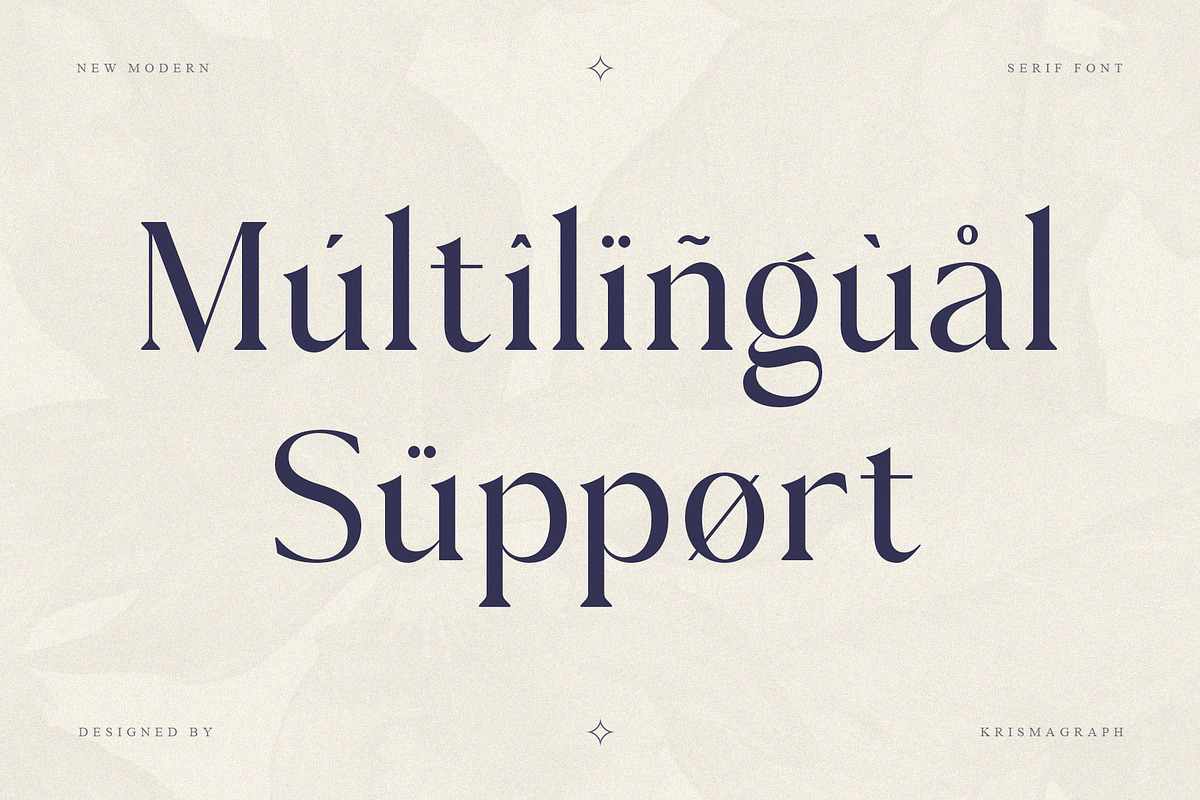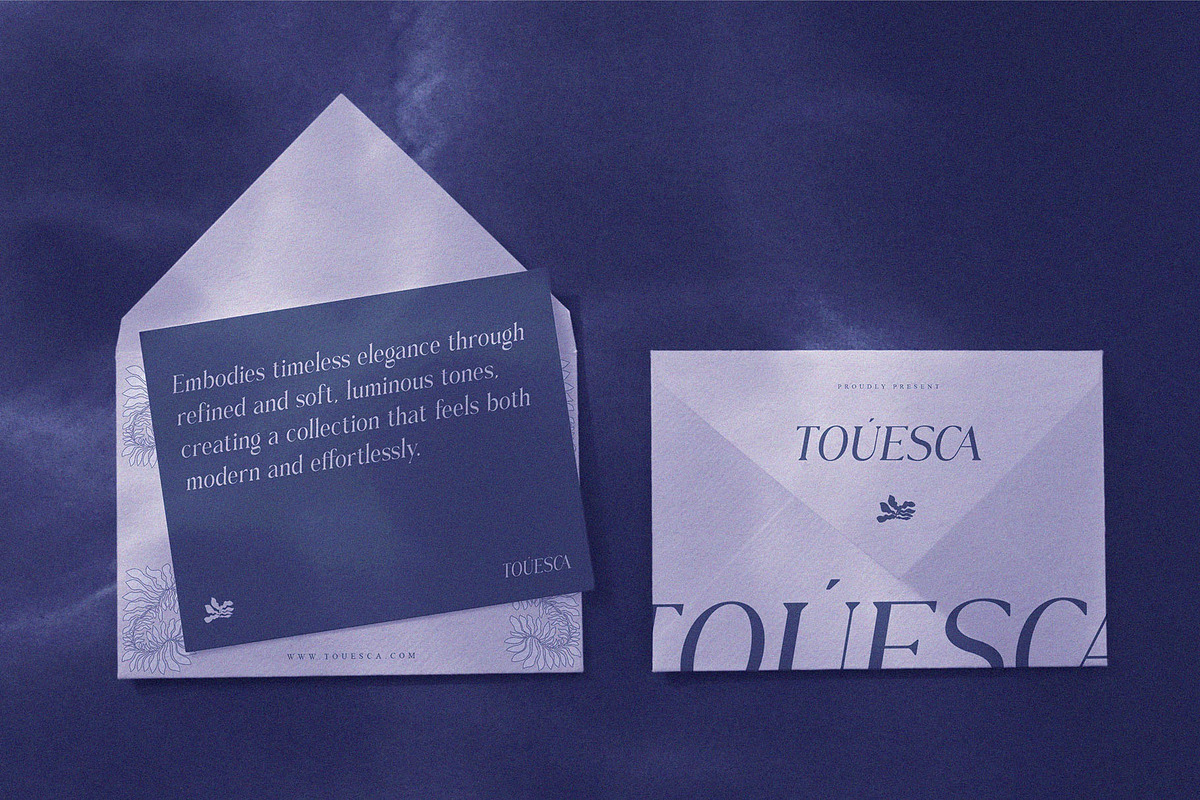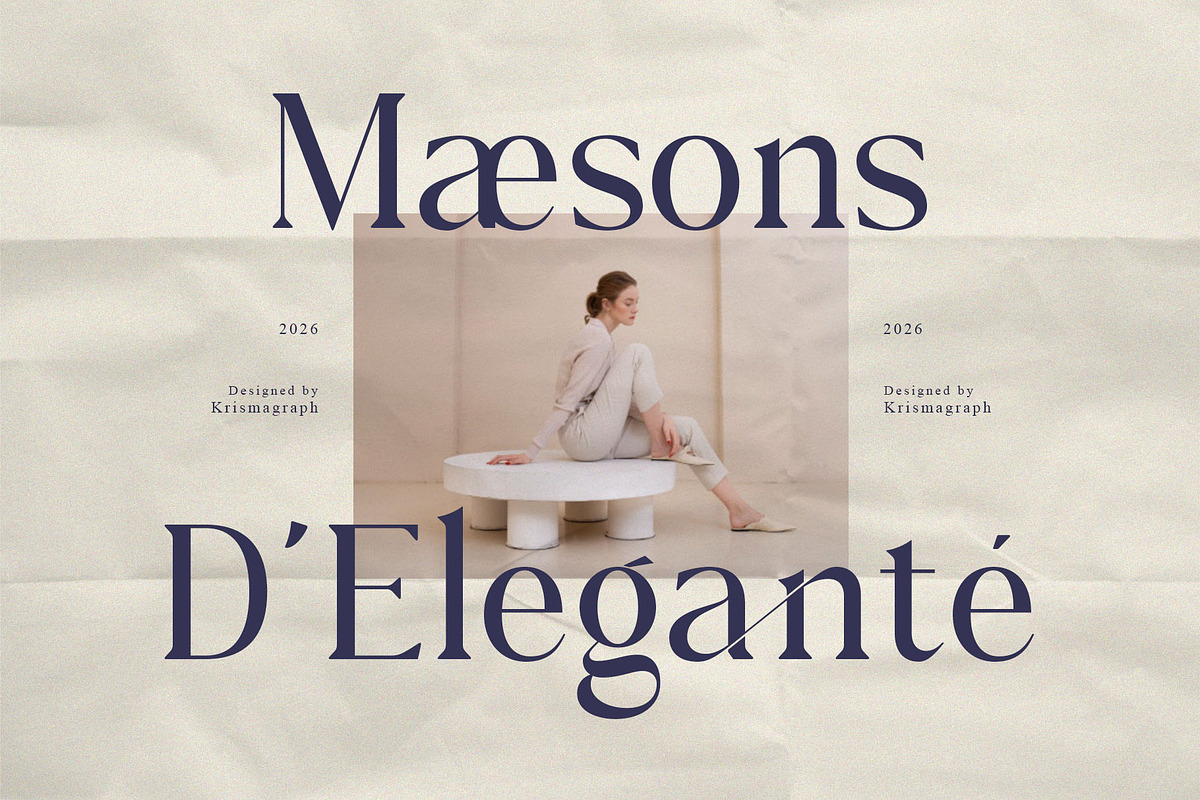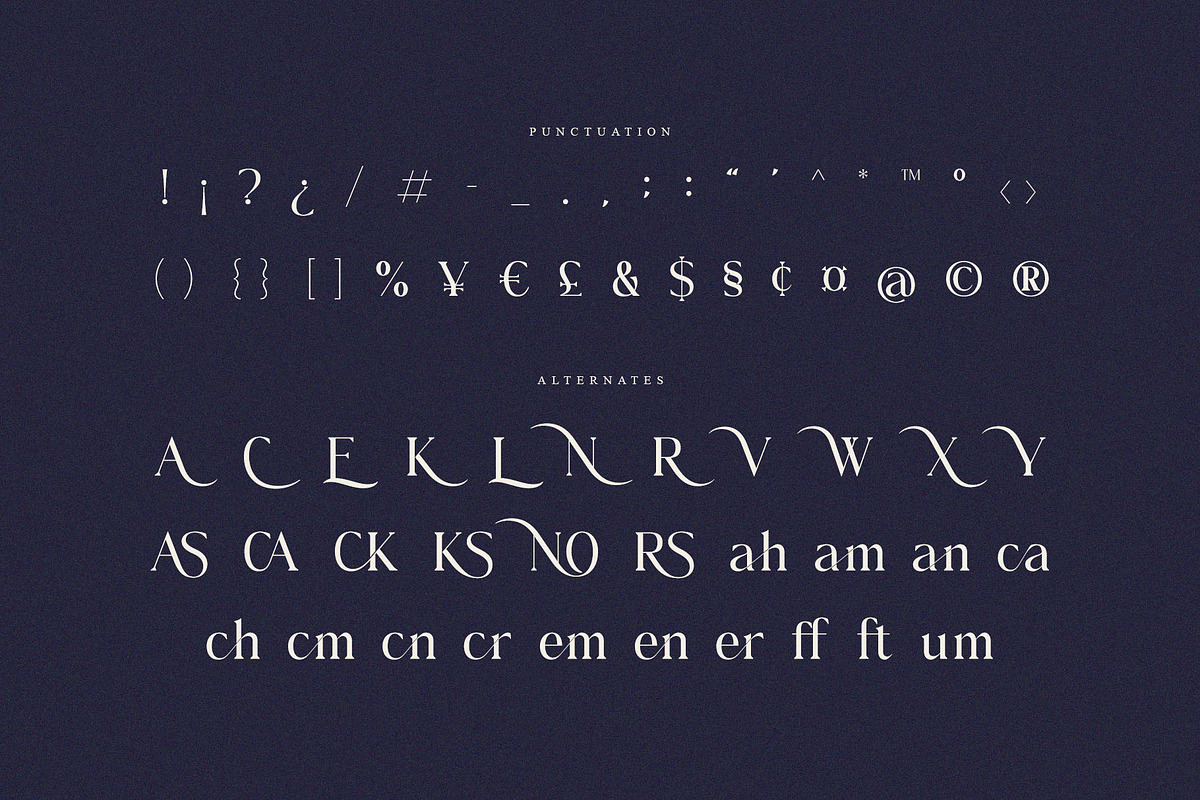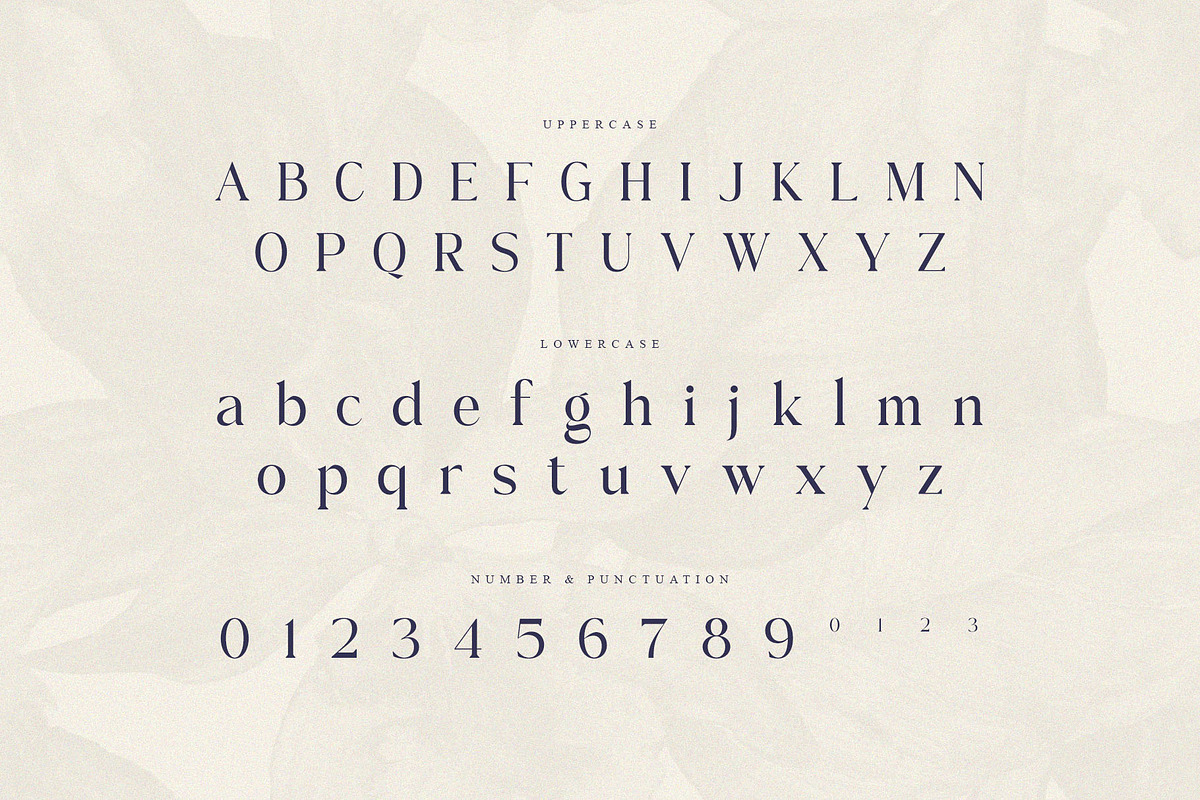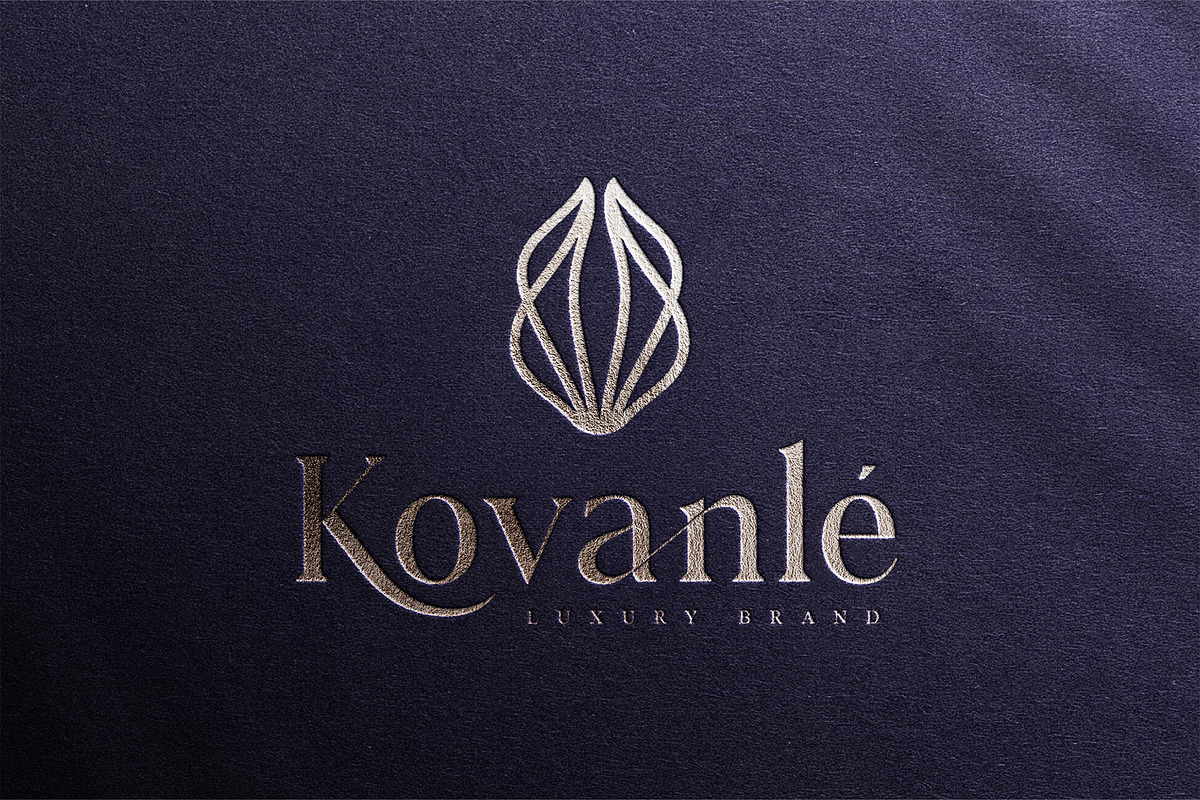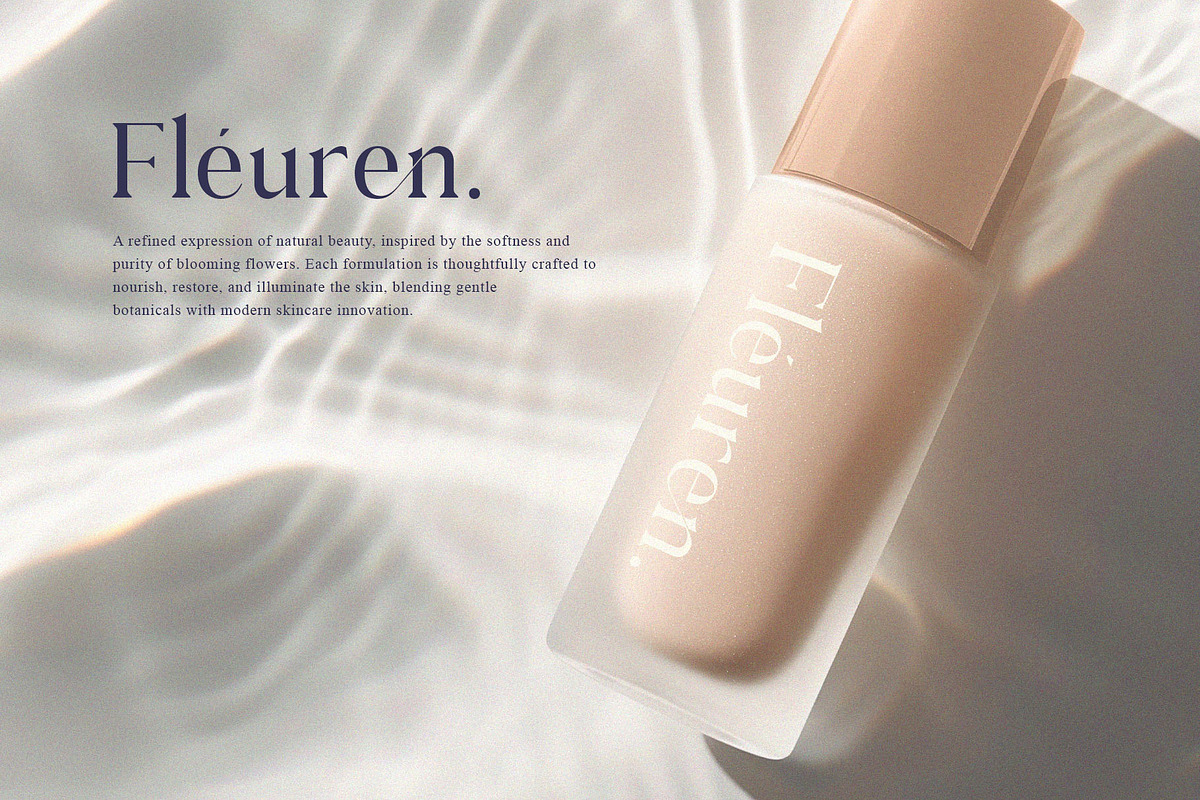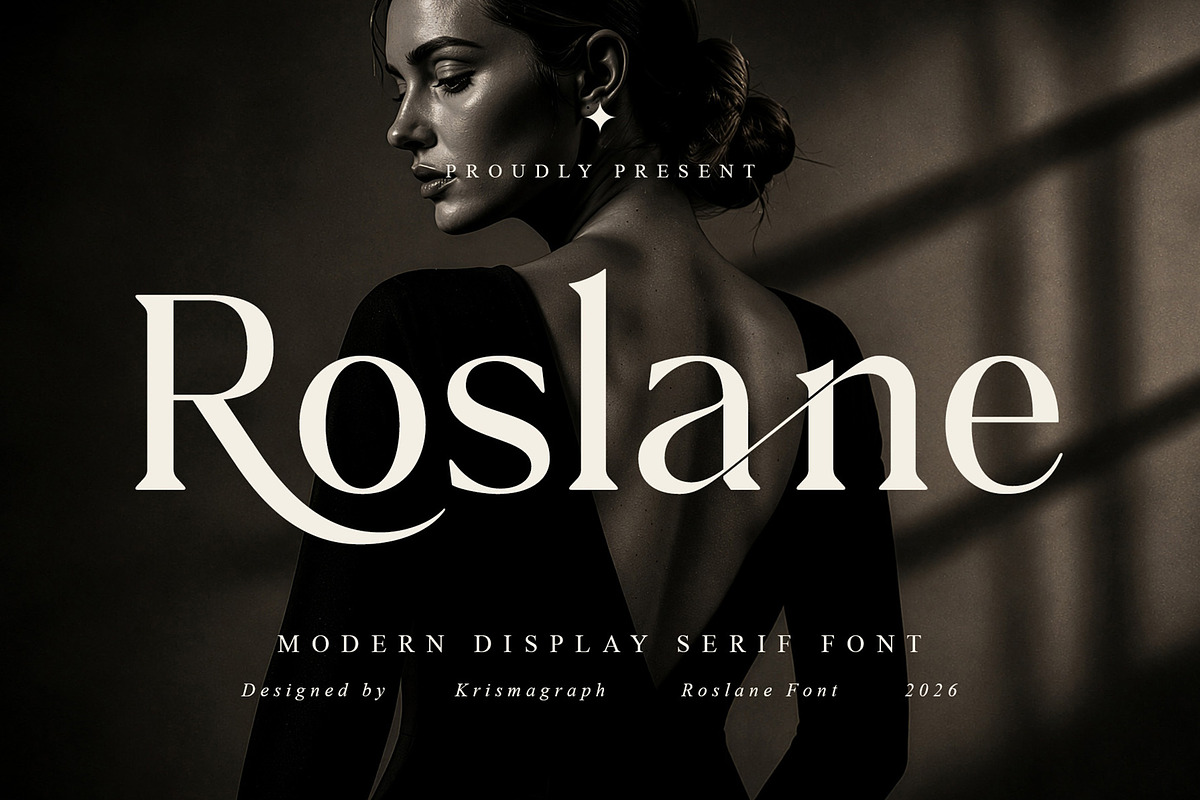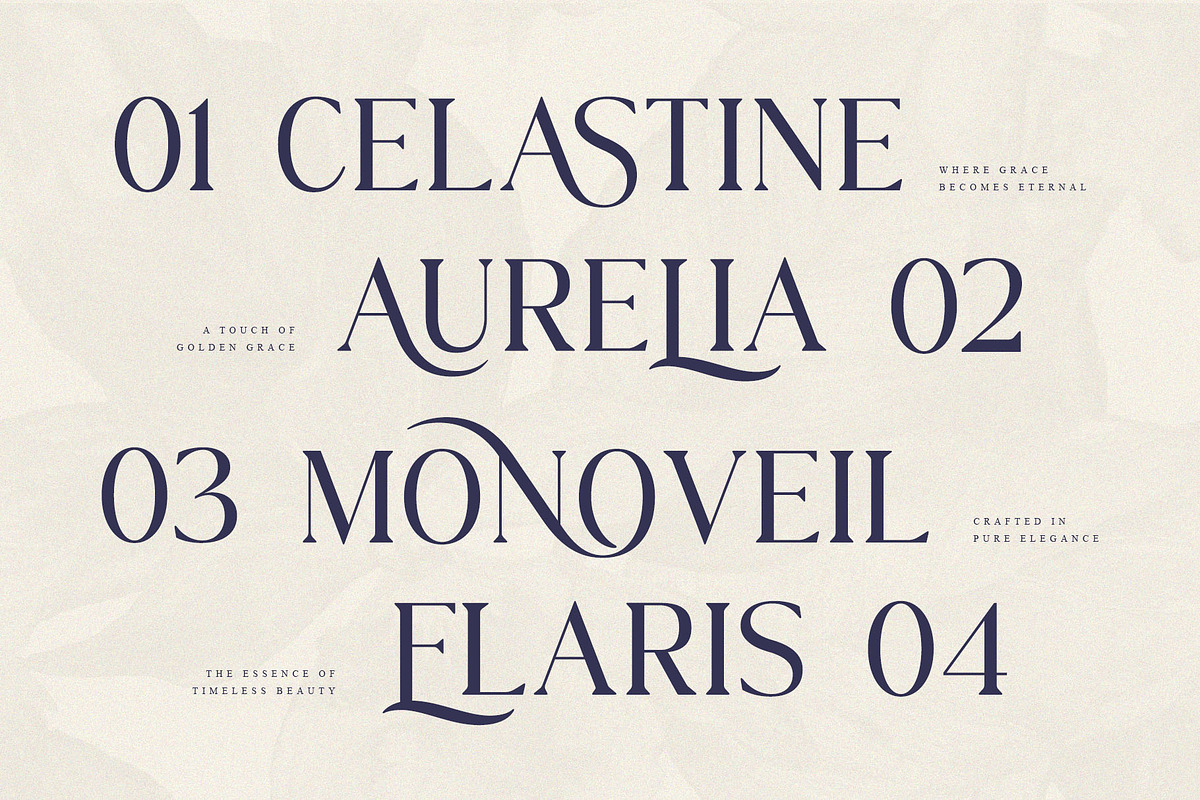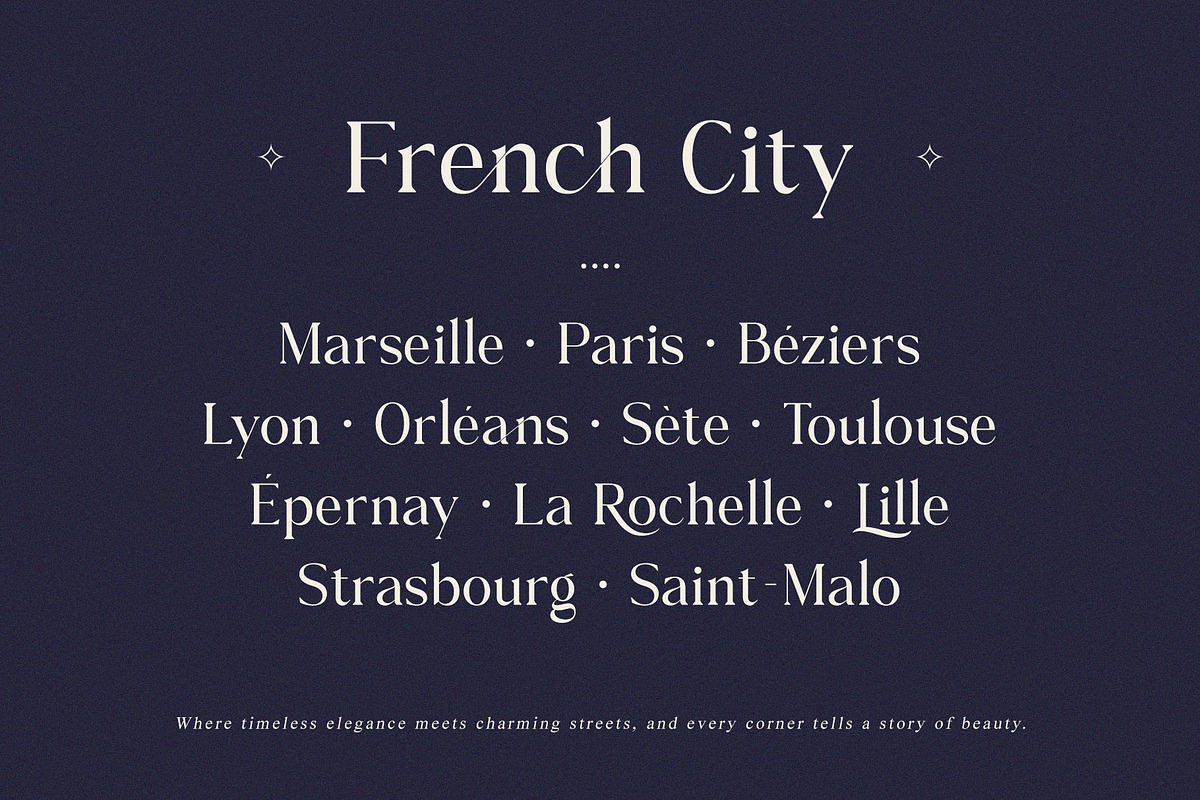
Roslane – Ligature Serif
Roslane is a modern high-fashion display serif that embodies quiet confidence and effortless grace. Drawing on the lineage of great editorial serifs, it refines those traditions with sharper contrast, more dramatic swells, and a contemporary silhouette that feels entirely of this moment.
The letterforms are sculpted with remarkable attention to flow — ascenders reach with purpose, curves resolve with precision, and the overall rhythm of the face has the composure of a well-chosen word. Roslane is particularly at home in luxury fashion editorials, fine fragrance branding, high-end beauty campaigns, premium hospitality identities, architectural publications, and bridal collections.
What separates Roslane from the sea of editorial serifs is its restraint. Nothing is overdone. The elegance is structural, not decorative — which means it ages with the same grace it debuts with.